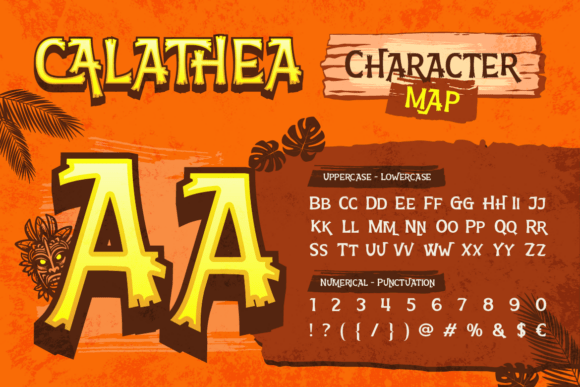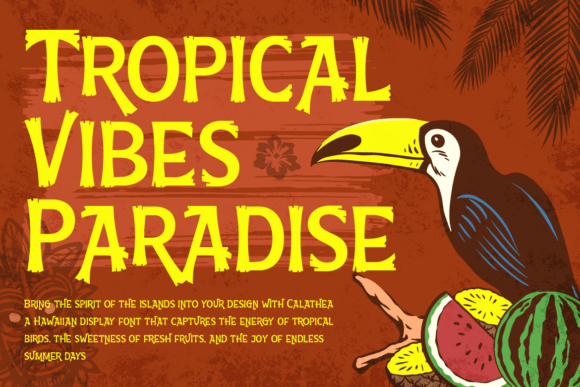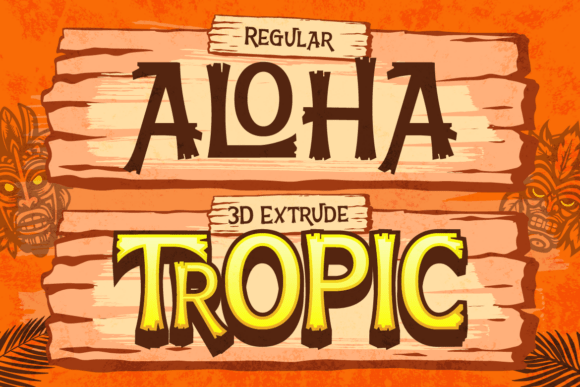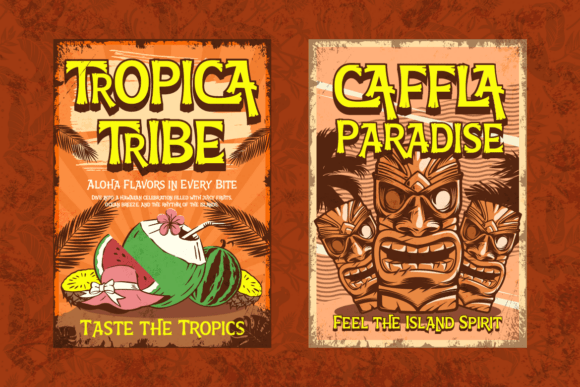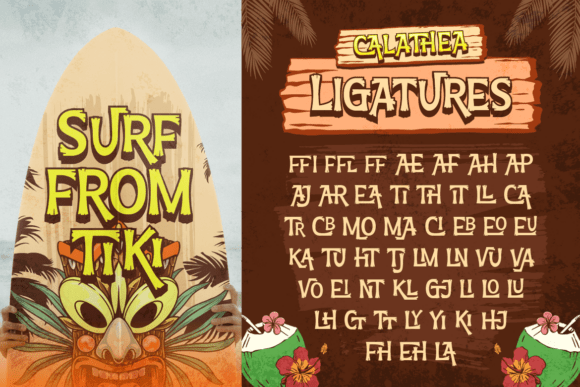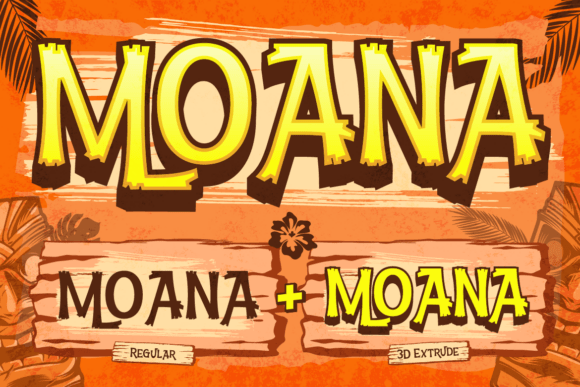
Introducing Calathea Font: The Ultimate Tropical Display Font
Are you looking for a font that can instantly add a touch of tropical sunshine to your designs? Look no further than Calathea Font, a fun and bold Hawaiian display font that brings island vibes straight into your creative projects. Whether you’re designing summer posters, tropical logos, surfboard art, or vacation merchandise, Calathea is the perfect choice to evoke a cheerful and relaxed island spirit.
Inspired by Tiki Culture and Beach Life
Calathea Font is inspired by the carefree and vibrant culture of tiki and beach life. The font’s unique design is reminiscent of the iconic beach signs, surfboards, and tropical prints that evoke a sense of nostalgia and fun. With Calathea, you can bring a splash of tropical joy to your designs and transport your audience to a sunny island paradise.
Versatile and Customizable
Calathea Font comes in two exciting styles: Regular and 3D Extruded. The Regular style is perfect for creating bold and eye-catching designs, while the 3D Extruded style adds an extra dimension of depth and creativity to your projects. With Calathea, you have the freedom to play with different styles and effects to achieve the perfect look for your design.
Calathea Font is perfect for a wide range of design projects, including:
• Posters and signage: Create eye-catching posters and signs that grab attention and evoke a sense of tropical fun.
• Beach and bar branding: Add a touch of island vibes to your branding and packaging with Calathea’s unique and playful design.
• Summer invitations: Create invitations that set the tone for a fun and relaxed summer party or event.
• Travel merch and packaging: Add a touch of tropical charm to your travel merchandise and packaging with Calathea’s bold and colorful design.
PUA-Encoded for Effortless Customization
Calathea Font is PUA-encoded, making it easy to access all glyphs, swashes, and alternate characters. This means you can customize your designs with ease and create unique and creative projects that stand out from the crowd.
Bring a Splash of Tropical Joy to Your Designs
With Calathea Font, you can bring a splash of tropical joy to your designs and evoke a sense of sunshine and island vibes. Whether you’re a designer, crafty, or simply looking for a fun and creative font, Calathea is the perfect choice. So why not give it a try and let every word feel like a vacation?
Key Features of Calathea Font
• Fun and bold Hawaiian display font
• Inspired by tiki culture and beach life
• Comes in Regular and 3D Extruded styles
• PUA-encoded for effortless customization
• Perfect for posters, signage, branding, invitations, and travel merchandise
Get Ready to Add Some Tropical Flair to Your Designs